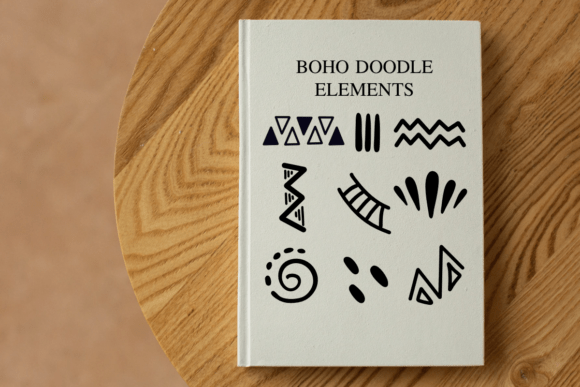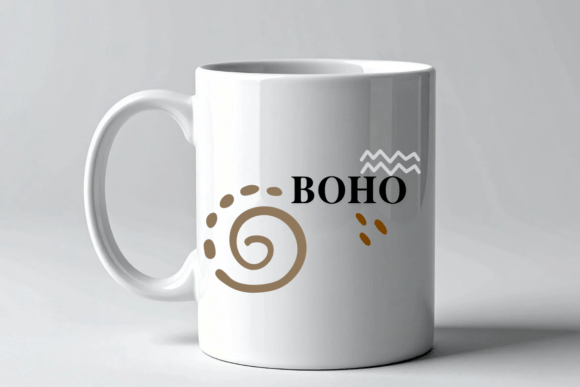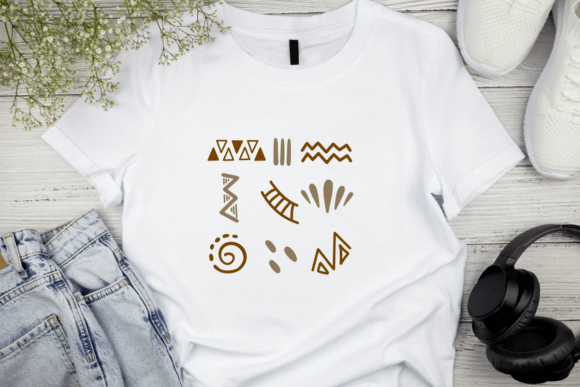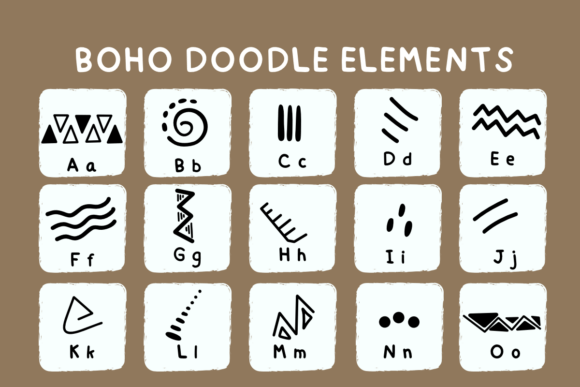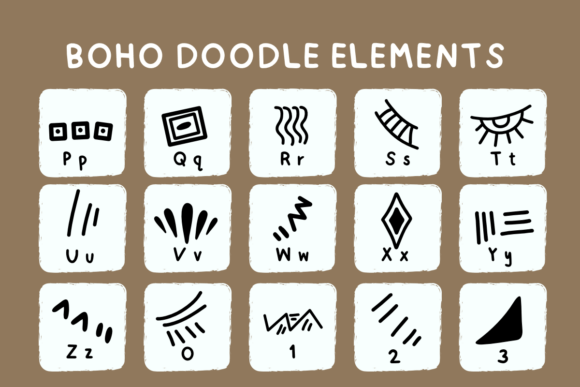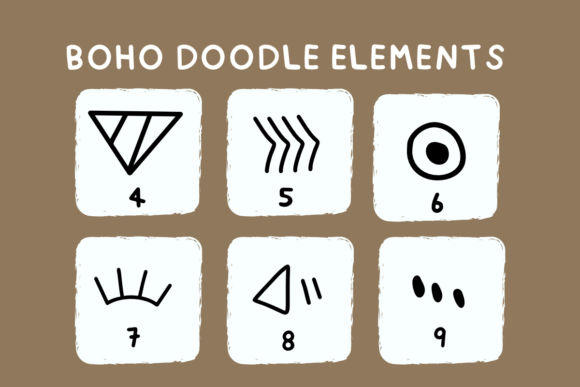
Unleash Your Creativity with Boho Doodle Elements Font
Are you a designer, crafter, or DIY enthusiast looking for a unique and creative way to add a personal touch to your projects? Look no further than Boho Doodle Elements, an innovatively rendered dingbats font that embodies a sketch-style aesthetic. This versatile font is perfect for a wide range of projects, from enchanting wedding invitations to personalized DIY crafts, and can add a distinguished charm to decorative elements or become the signature style of your logo.
What is Boho Doho Elements Font?
Boho Doodle Elements is a one-of-a-kind dingbats font that features a sketch-style design, reminiscent of bohemian doodles. The font is carefully crafted to provide a distinctive and artistic look that can elevate any project. With its unique glyphs and illustrations, Boho Doodle Elements offers endless possibilities for creative expression.
Endless Possibilities for Creative Projects
Boho Doodle Elements is an incredibly versatile font that can be used in a variety of projects, including:
• Wedding Invitations: Add a touch of whimsy and romance to your wedding invitations with Boho Doodle Elements. The font’s sketch-style design creates a beautiful, hand-drawn look that sets the tone for a memorable and enchanting celebration.
• DIY Crafts: Personalize your DIY crafts, such as journals, cards, and gift tags, with Boho Doodle Elements. The font’s unique glyphs and illustrations will add a touch of personality and charm to your creations.
• Decorative Elements: Use Boho Doodle Elements to add a distinguished charm to decorative elements, such as wall art, home decor, and stationery. The font’s bohemian-inspired design will add a touch of elegance and sophistication to any room.
• Logo Design: Make Boho Doodle Elements the signature style of your logo. The font’s unique design will help your brand stand out and create a lasting impression.
What Makes Boho Doodle Elements Special?
Boho Doodle Elements is more than just a font – it’s a creative tool that allows you to express yourself in a unique and artistic way. Here are a few features that make Boho Doodle Elements special:
• Unique Glyphs: Boho Doodle Elements features a wide range of unique glyphs and illustrations that are carefully designed to provide a distinctive look.
• Sketch-Style Aesthetic: The font’s sketch-style design creates a beautiful, hand-drawn look that adds a touch of personality and charm to any project.
• Versatility: Boho Doodle Elements is incredibly versatile and can be used in a variety of projects, from digital designs to handmade crafts.
Tips for Using Boho Doodle Elements
Here are a few tips for using Boho Doodle Elements in your projects:
• Experiment with Different Sizes: Boho Doodle Elements looks great in a variety of sizes, from small and delicate to large and bold. Experiment with different sizes to find the perfect fit for your project.
• Combine with Other Fonts: Boho Doodle Elements pairs well with a variety of fonts, from serif and sans-serif fonts to script fonts. Experiment with different font combinations to create a unique look.
• Use as a Decorative Element: Boho Doodle Elements can be used as a decorative element in its own right. Use the font to create borders, frames, and other design elements that add a touch of personality to your project.
Author Bee piyanuch
Boho Doodle Elements is a unique and creative font that can add a touch of personality and charm to any project. With its sketch-style aesthetic and versatile design, Boho Doodle Elements is perfect for designers, crafters, and DIY enthusiasts looking to unleash their creativity. Whether you’re creating wedding invitations, DIY crafts, or decorative elements, Boho Doodle Elements is the perfect tool to help you bring your ideas to life.